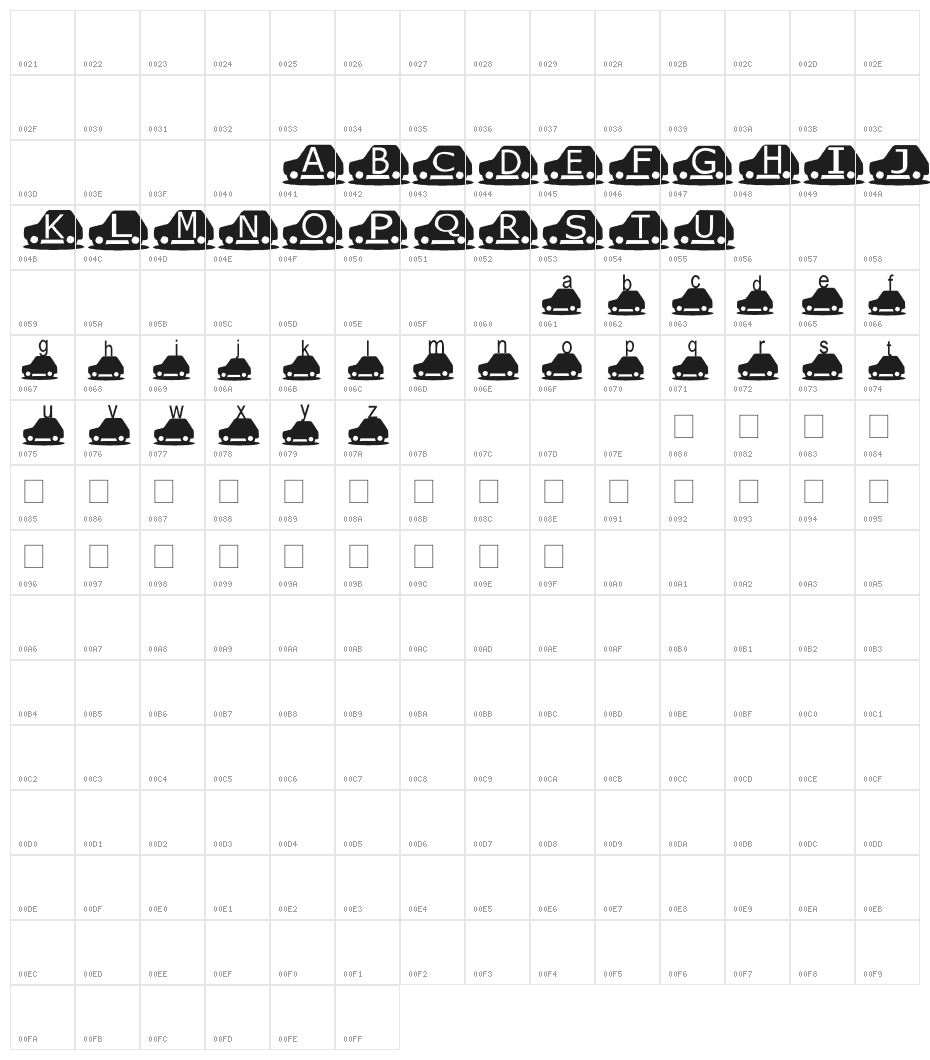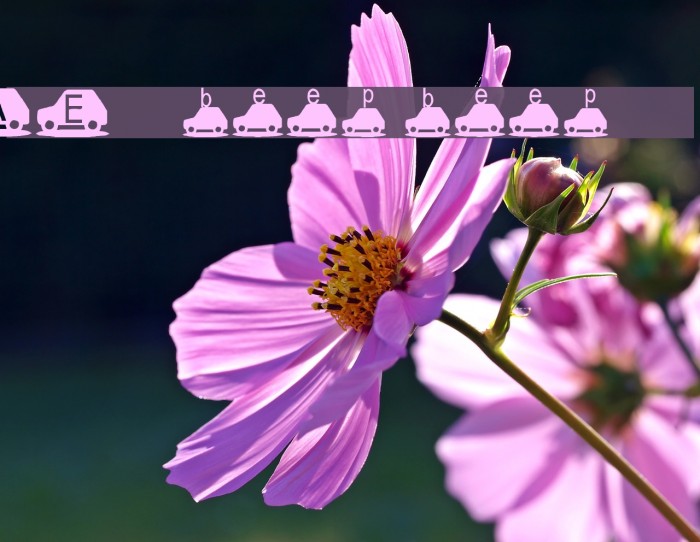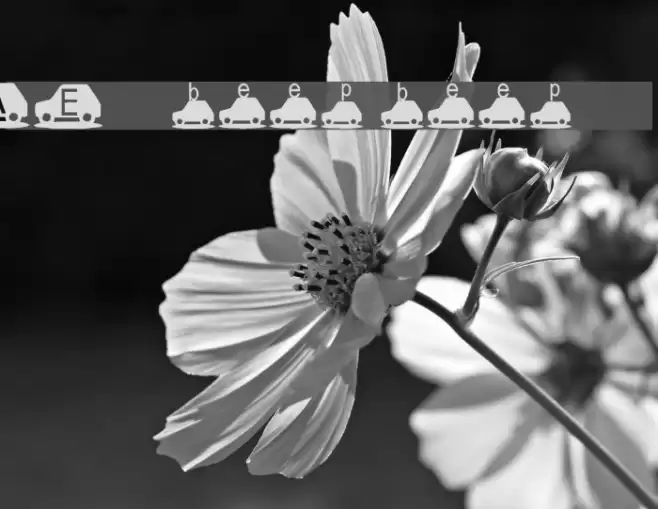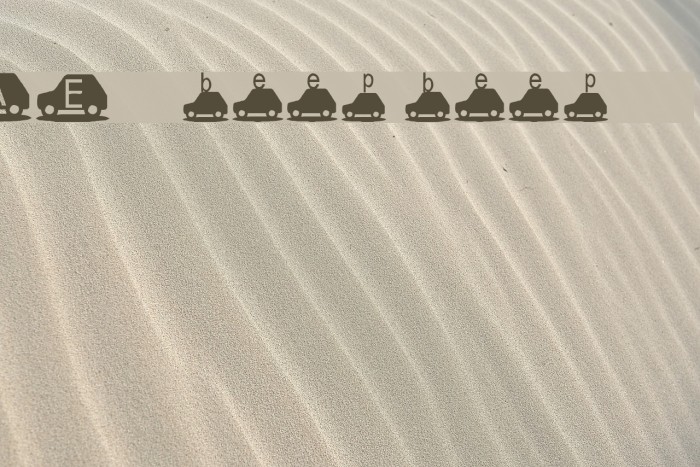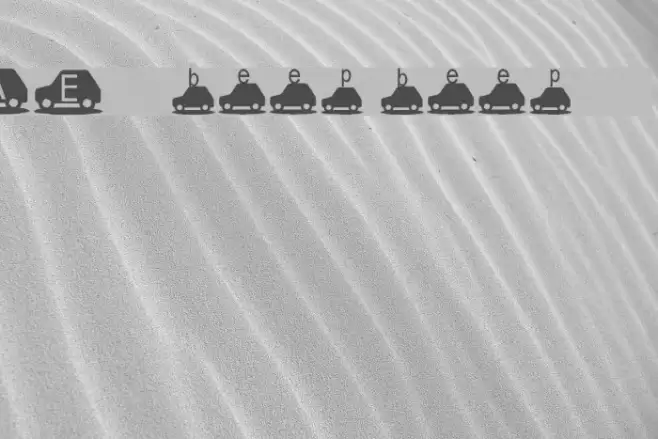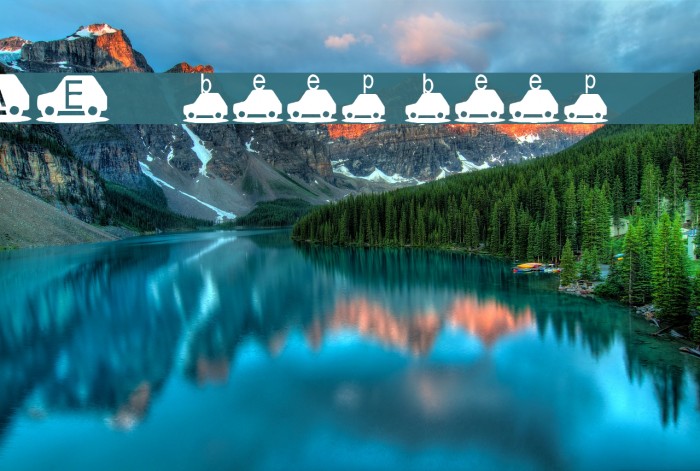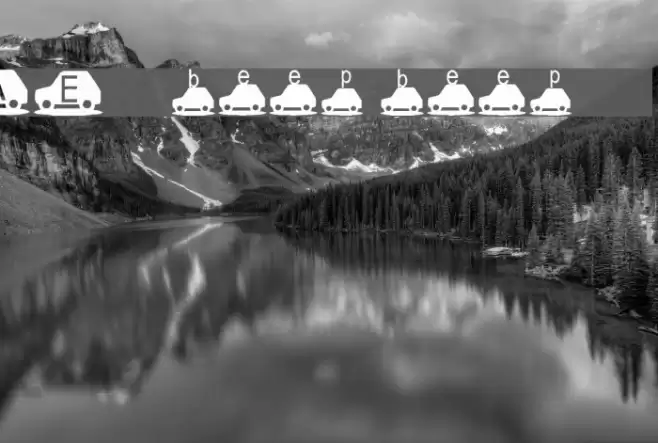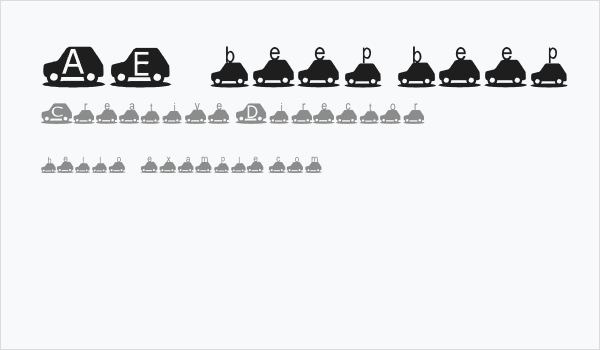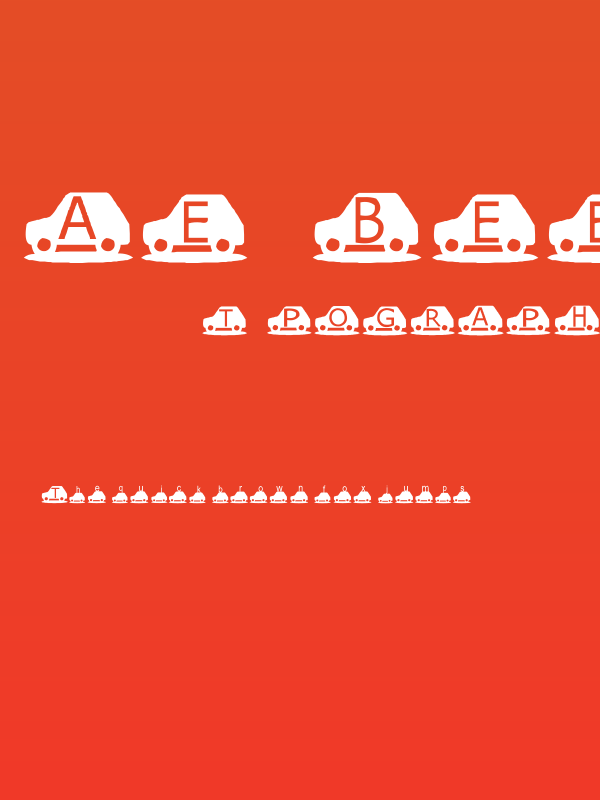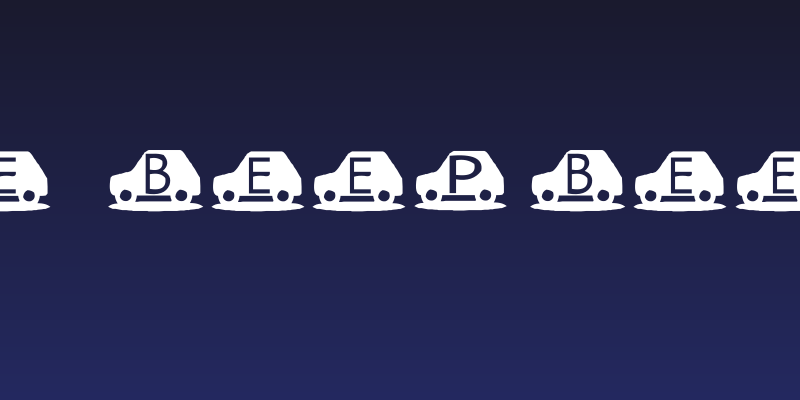
AEZ beep beep! Font
AEZ beep beep! Description
This playful and creative font features each letter and number embedded within a stylized car shape, giving it a unique and whimsical appearance. The design is consistent across uppercase and lowercase letters, as well as numbers, maintaining the car motif throughout. The characters are bold and easily distinguishable, making them suitable for fun and engaging projects. The font's novelty design is perfect for capturing attention and adding a touch of humor or lightheartedness to any text. The spacing between characters is normal, ensuring readability while maintaining the decorative theme.
| Use Case | Logos, Posters, Children's Books |
| Proposed Projects | Ideal for children's books, automotive-themed events, playful posters, and novelty merchandise. |